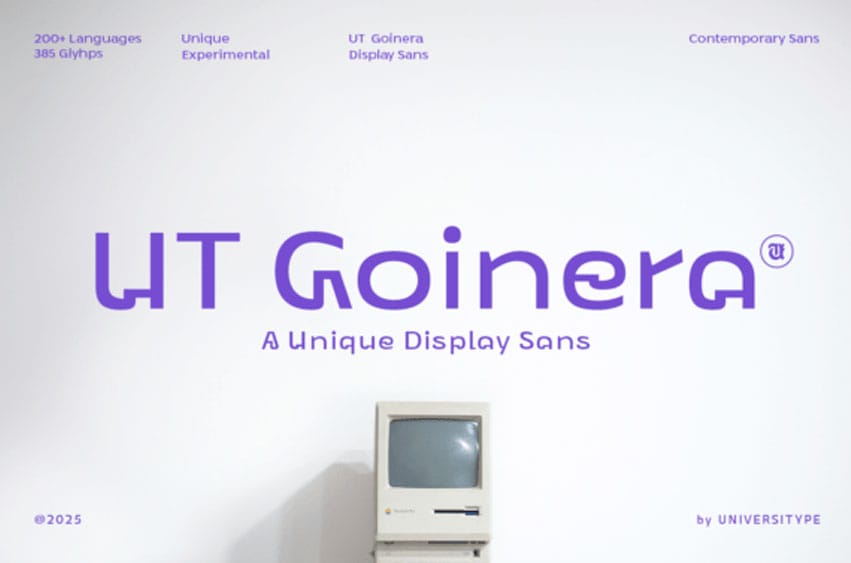
Ut Goinera Font Enter the world of UT Goinera, a contemporary geometric font with origins grounded in the simplicity of a coffee cup lid. Don’t be misled by its humble inspiration, this typeface combines neat structure with nuances that add a touch of warmth and character. Featuring gentle curves, bold vertical lines, and unique joints, UT Goinera marries architectural accuracy with a soft, earthly ambience.
This well-considered, welcoming, and effortlessly chic typeface is perfect when you’re looking to conceptualize a brand identity, engineer an elegant UI layout, or design eye-catching packaging. UT Goinera provides a pristine foundation that bears just the right amount of intricacy, which ensures it draws attention without coming across as trying too hard.
It’s a top pick for designers, branding maestros, UI/UX enthusiasts, and creatives looking for a thoughtful structure and understated details. Brands wishing to convey a modern, unique and accessible personality – be it a minimalist skincare range, a serene tech device, or an insightful content platform – will find UT Goinera perfect.
Key standout features include a single-storey “a” and gentle rounded terminals; a unique joint system that draws inspiration from real-world shapes; a geometric cadence that tops the readability charts; suitability for both prominent display and minute text; and a casual appeal that doesn’t compromise on orderliness.
The inspirational spark behind UT Goinera was conceived from the unexpected: a coffee cup lid. The way the form effortlessly curves and locks to create a satisfying closure emerged as a superb design model for letter construction. That translation of tangible shapes into the lettering structure birthed the signature joint system across all letterforms. The single-storey “a” emerges directly from this exploration, where curves, stems, and bars intersect to create an effect that’s both industrial and tender. It’s a font born of daily design, raised to prominence through meticulous detailing.
Ideal for branding about lifestyle, fashion, or tech, as well as clean and serene editorial layouts, digital interfaces, and mobile apps. It’s also suitable for modern-leaning packaging design, posters, quote graphics, and social content. Experience UT Goinera – where everyday design is transformed into extraordinary typography.